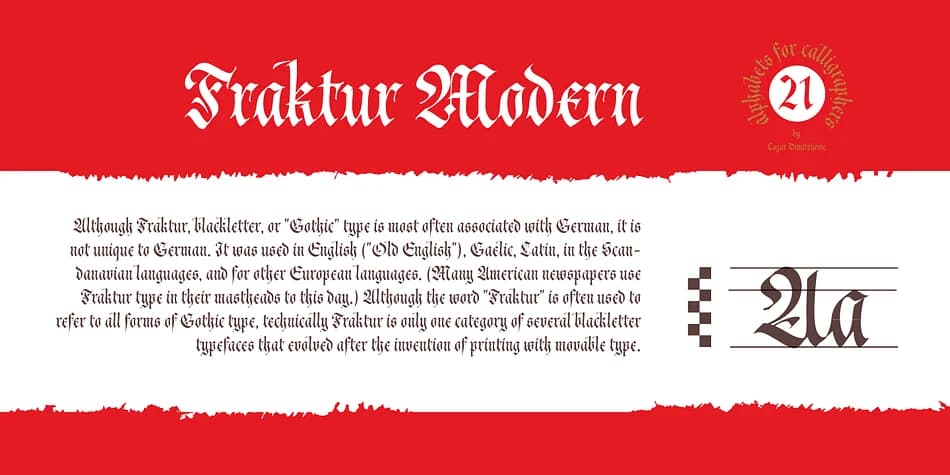
Cal Fraktur Modern by Posterizer KG is a blackletter typeface rooted in authentic Gothic Fraktur calligraphy. Rather than simplifying historical letterforms into a digital approximation, Posterizer KG drew directly from hand-written calligraphic pages, carefully preserving the deliberate weight, ornamental strokes, and rhythmic character that makes these forms feel genuinely alive on the page. The result is a design grounded in actual manuscript tradition rather than computer shortcuts.
This typeface serves projects that demand both historical authenticity and strong visual presence. Designers reach for it when designing hardcover book covers and title pages where medieval or gothic aesthetics need to set the tone, formal certificate designs and proclamations where ornamental letterforms add gravitas, vintage-style labels and packaging for heritage brands or artisan product lines, and thoughtful reproduction of period documents where accuracy genuinely matters. The complete Latin character set handles multilingual work without limitation.
Blackletter fonts perform best when you give them space. They're not meant for running body text at small sizes, but they command real attention at display scales and create a visual impact that contemporary sans-serif options simply can't achieve. Find Cal Fraktur Modern on Creative Fabrica and bring authentic calligraphic character to your next formal project.
- Ornate, Gothic
- Logos, Certificates
- medieval themes, band merch, and tattoo lettering
- a clean sans-serif for body text
Cal Fraktur Modern Font is a blackletter font that shines as a display or heading face. Pair it with a clean serif or sans-serif font for body text β the contrast creates a clear hierarchy while the two styles stay balanced and easy to read.
Cal Fraktur Modern Font